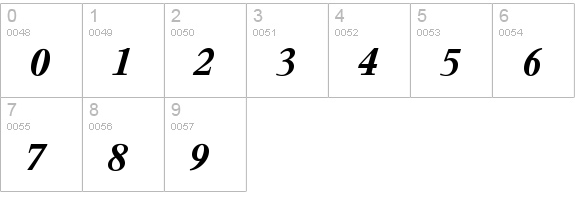
Thorndale AMT Bold Italic Font Details
Thorndale AMT Bold Italic is a strong, high-contrast, italic variant in the Thorndale typeface family \xE2\x80\x94 well suited to headlines, attention-grabbing titles, and strong calls-to-action.
Thorndale AMT Bold Italic font is a striking and captivating typeface that exudes a sense of power and confidence. Its bold and italic design adds an extra touch of flair, making it perfect for creating eye-catching headlines, titles, and branding materials. With its strong and commanding presence, Thorndale AMT Bold Italic font demands attention and instantly elevates any design project. Whether you're working on a poster, logo, or website, this font will make sure your message stands out and leaves a lasting impression. The unique combination of boldness and italics in Thorndale AMT creates a dynamic and energetic visual experience. It is a font that speaks volumes and conveys a sense of strength and determination. Its sleek and modern look makes it suitable for a wide range of applications, from contemporary designs to more traditional projects. But what truly sets Thorndale AMT Bold Italic font apart is that it is freely available to download at FontsMarket.com. This means that you can access this exceptional font without any cost, allowing you to enhance your designs without breaking the bank. Whether you're a professional designer or a hobbyist, this font offers you the opportunity to add a touch of sophistication and creativity to your work at no expense. So why wait? Download Thorndale AMT Bold Italic font now from FontsMarket.com and unlock its potential to transform your designs into extraordinary pieces of art. Whether you're aiming for a bold statement or a subtle accent, this font will help you achieve your desired effect with ease. Take advantage of its striking features and make your design projects truly unforgettable.